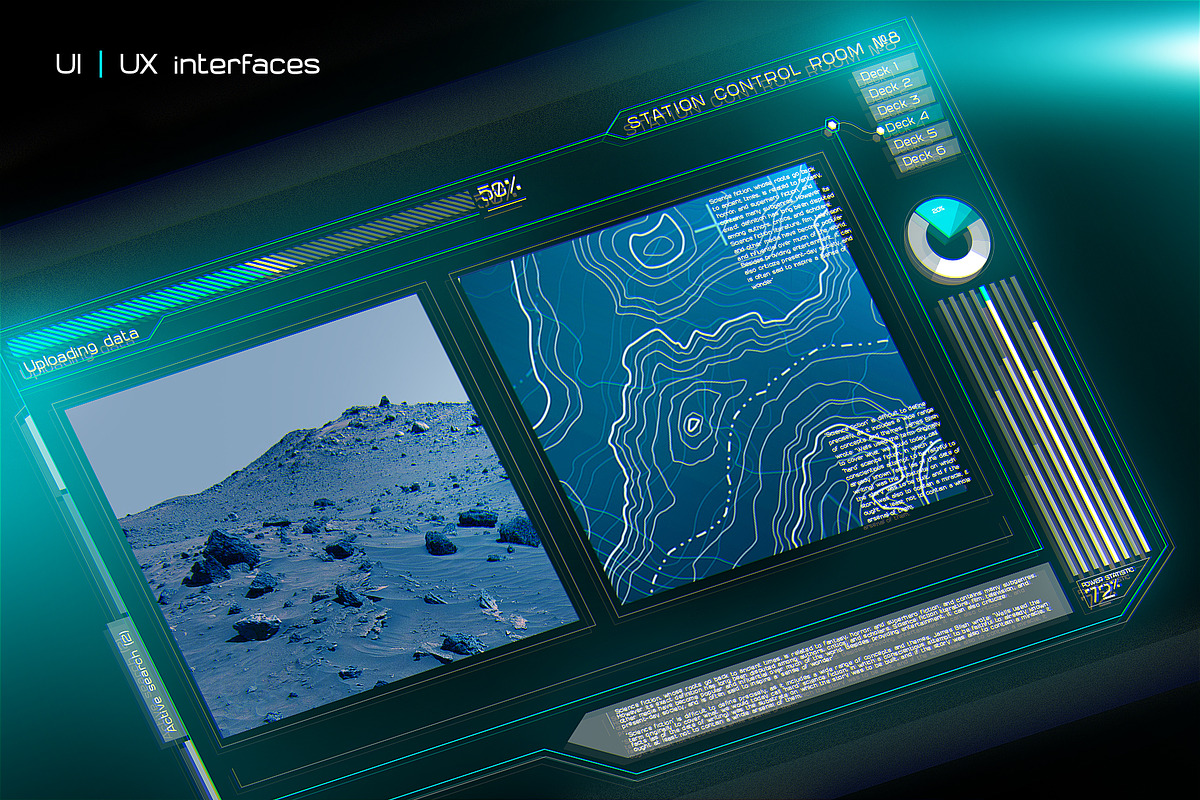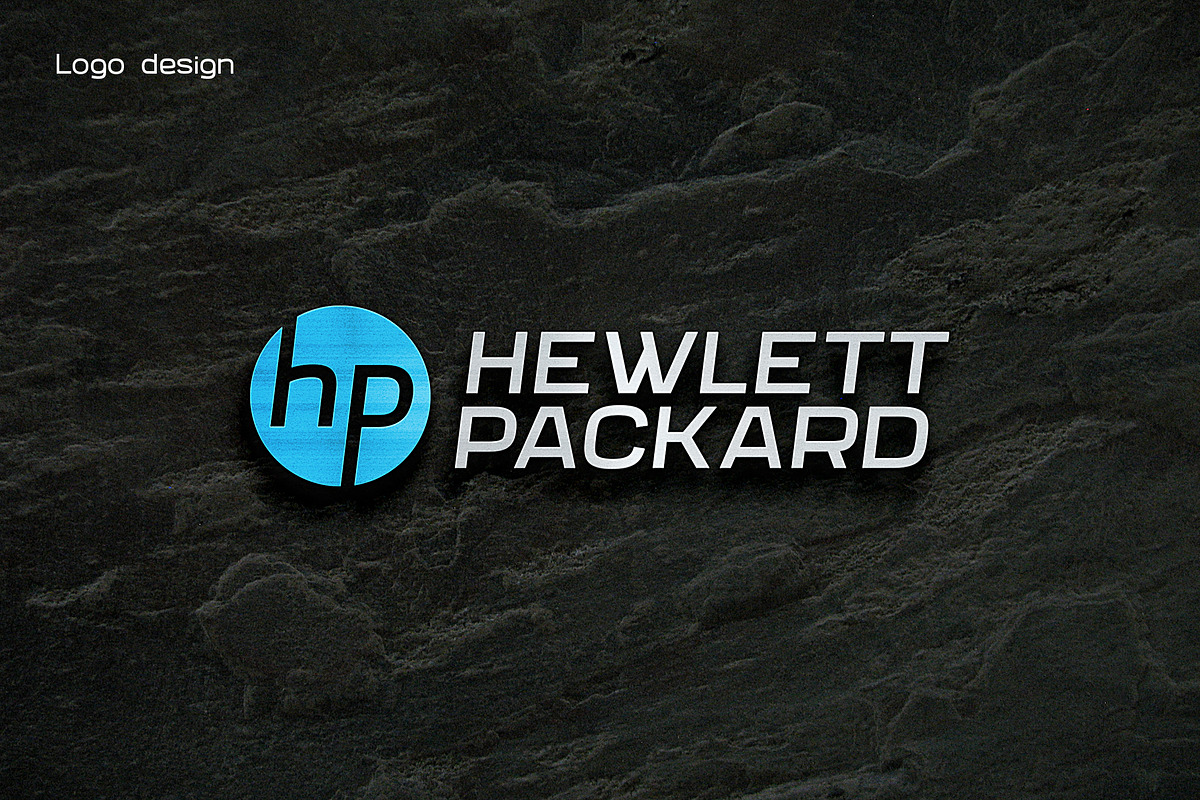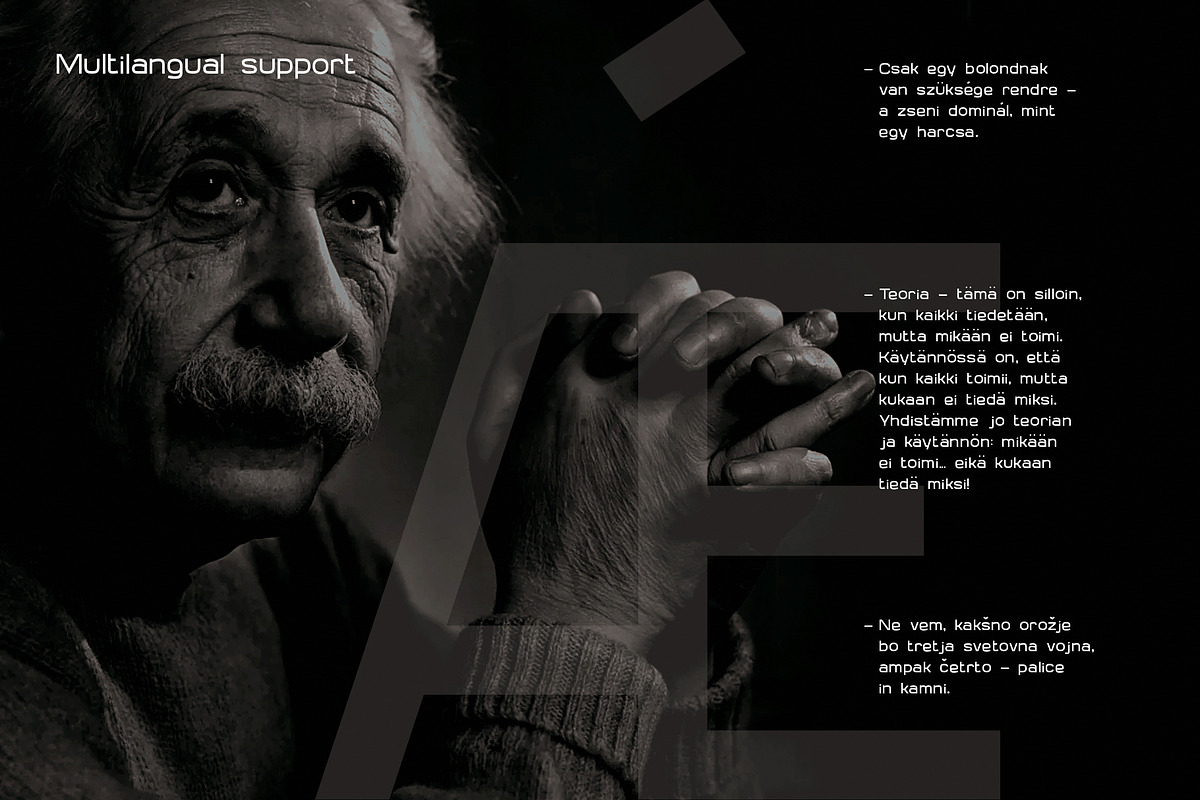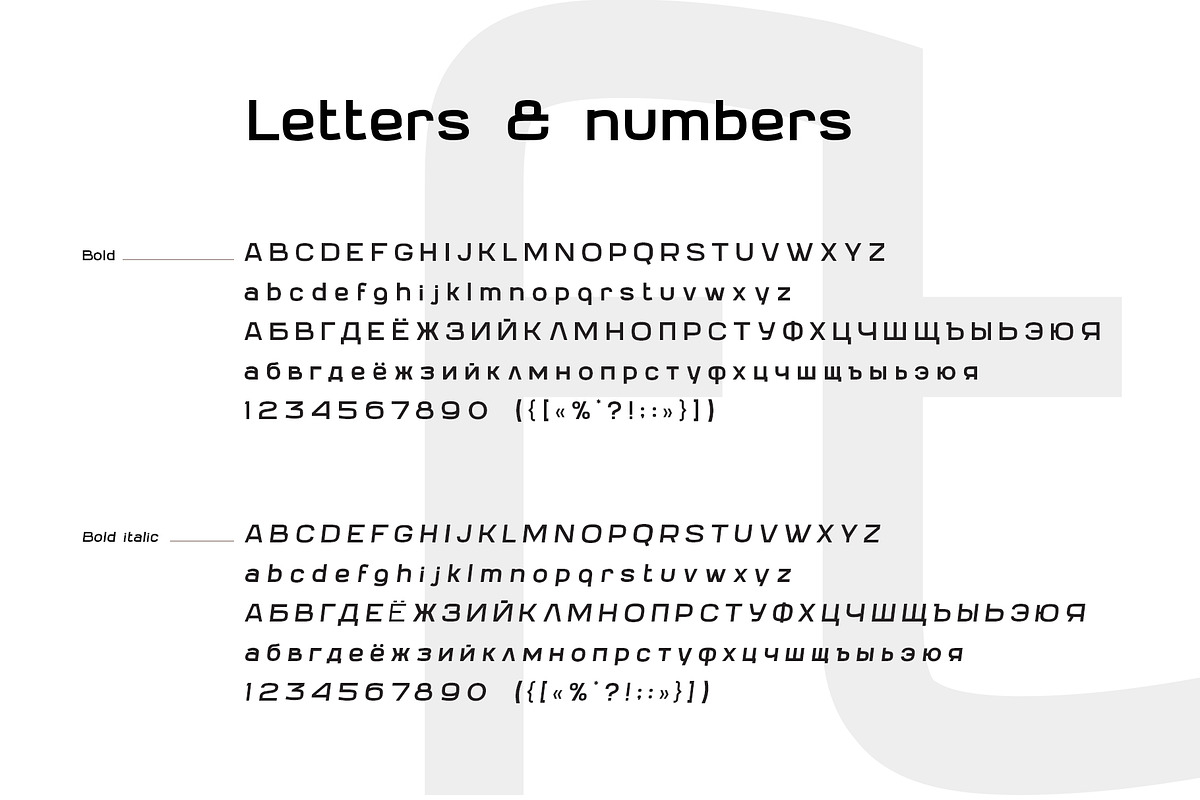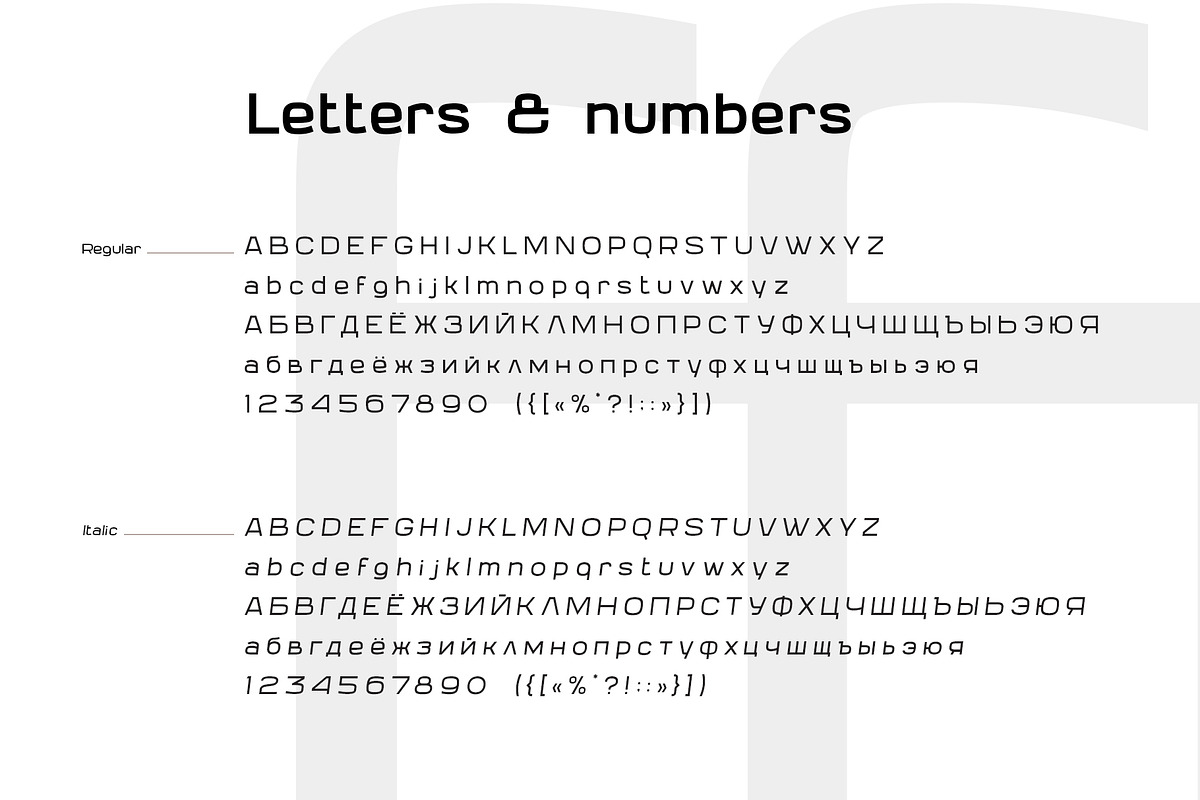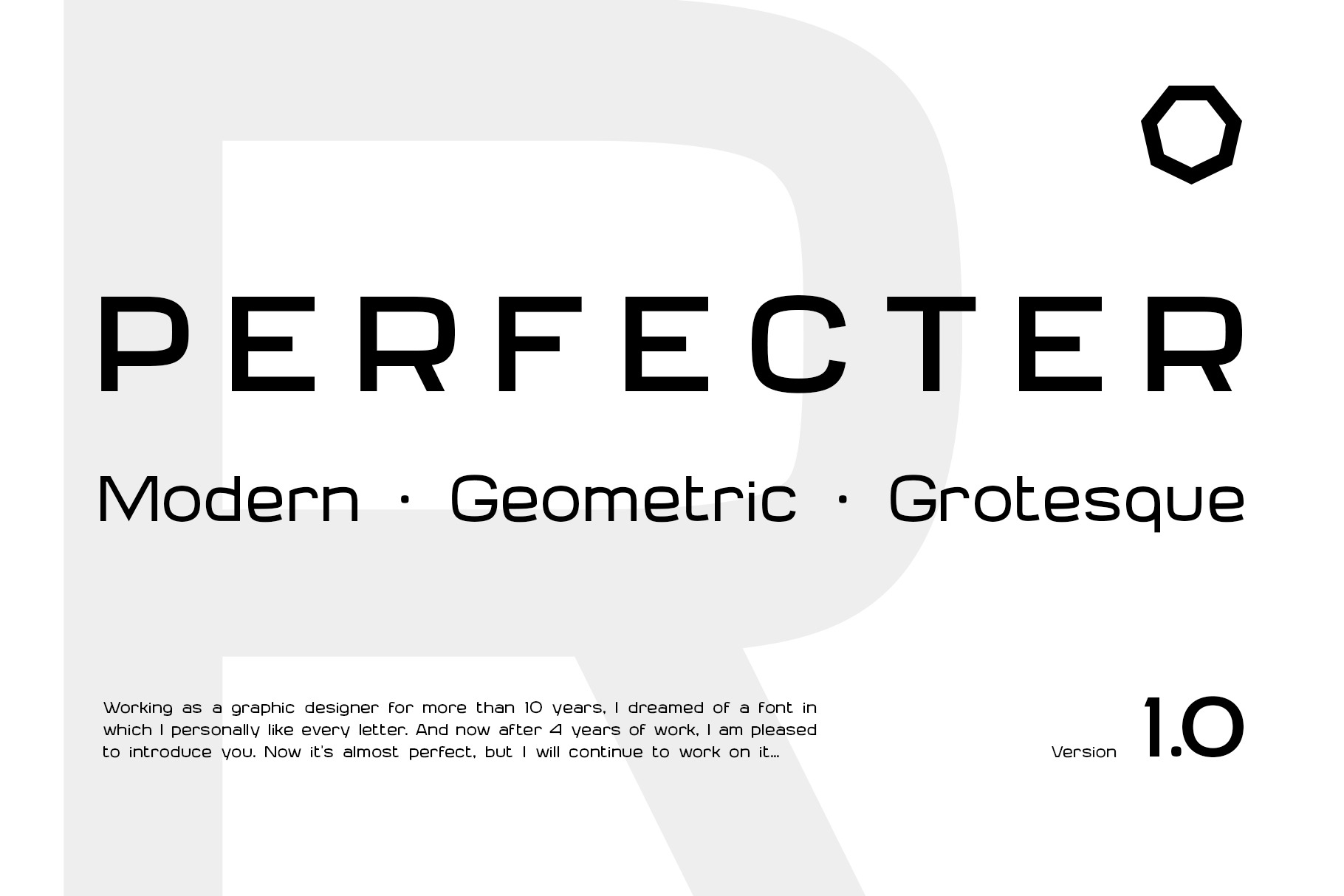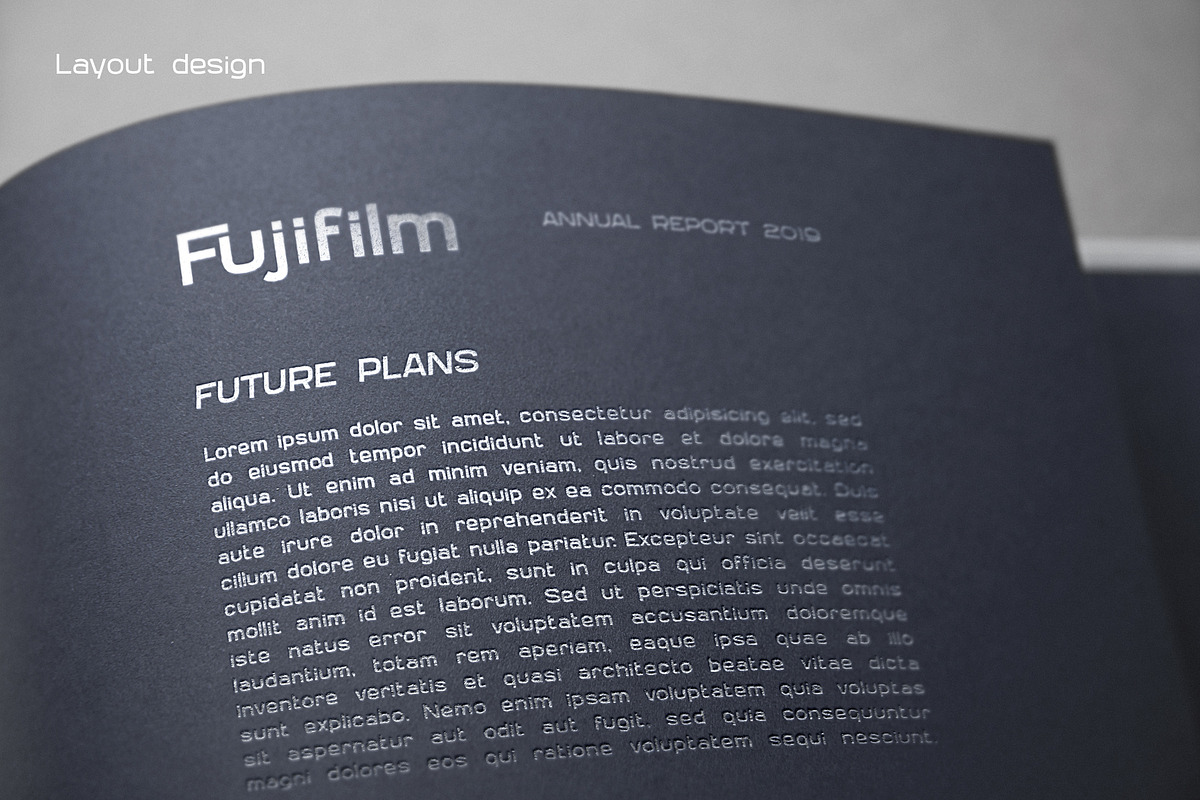
Perfecter | Font family
Perfecter is a geometric grotesque sans serif font. Well kerned. Multilingual. Perfect for logotypes, posters, books, and applications. The font is in the process. There will be more weights and other glyphs. If you find errors or missing glyphs, write us. We will fix it quickly.